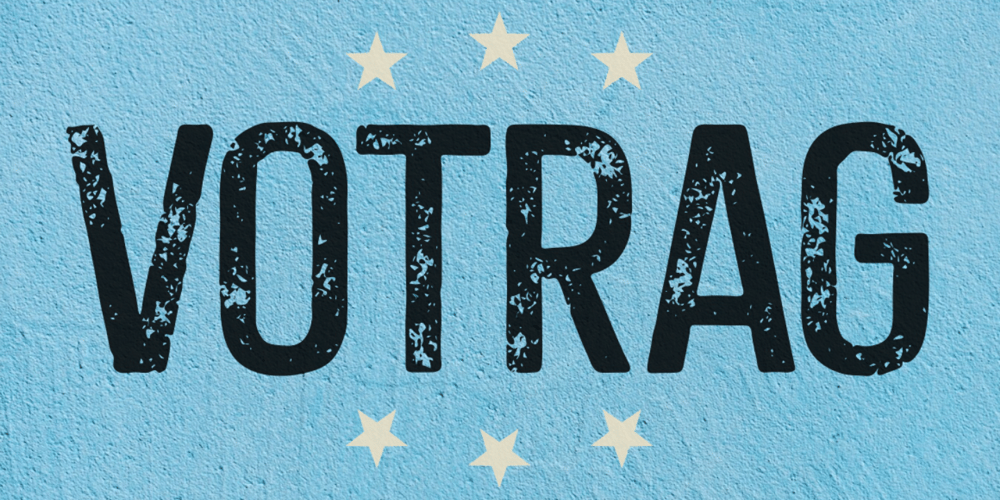
Votrag Texture Font Family was designed by Putra Novembria Candra Kusuma and published by Putracetol. Votrag Texture contains 10 styles and family package options. Introducing Votrag – 10 Modern Font Collection, a versatile typeface set that encompasses a spectrum of design possibilities. With five distinct weights – thin, light, regular, semibold, and bold – each accompanied by both clean and textured versions, Votrag offers a total of ten unique fonts.